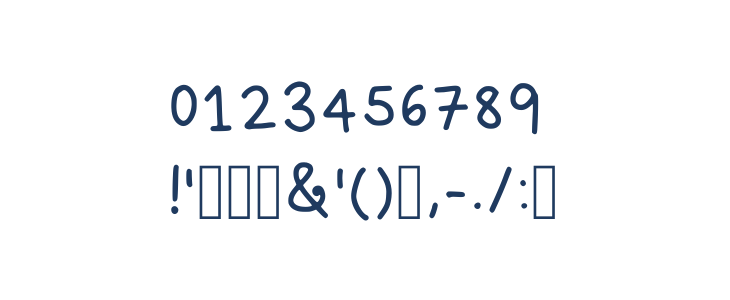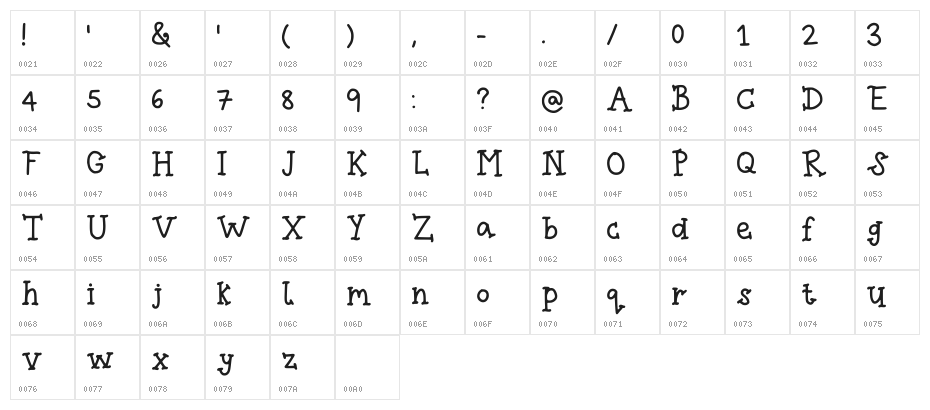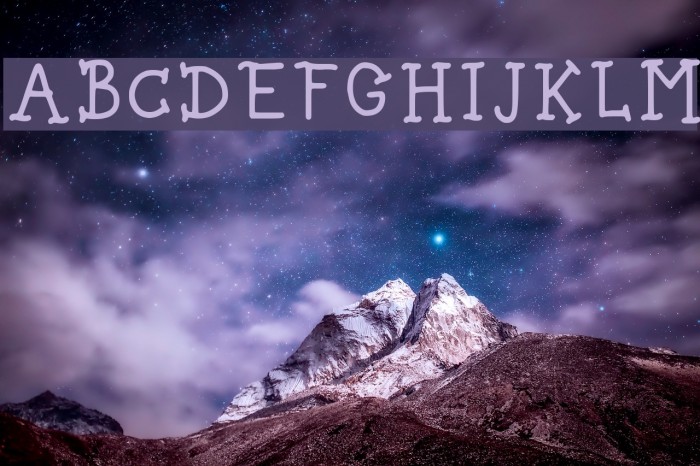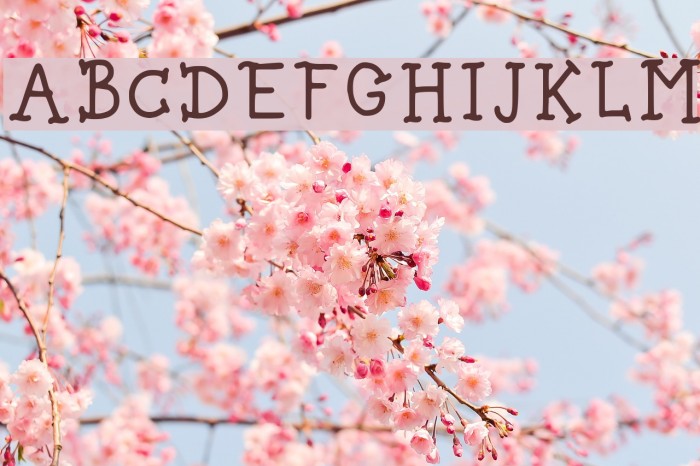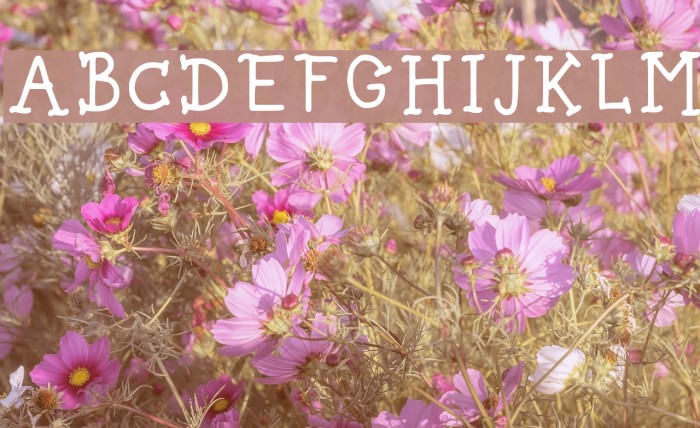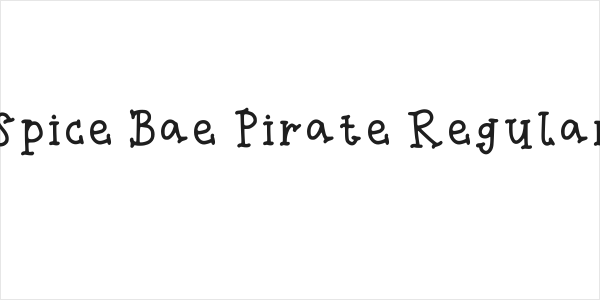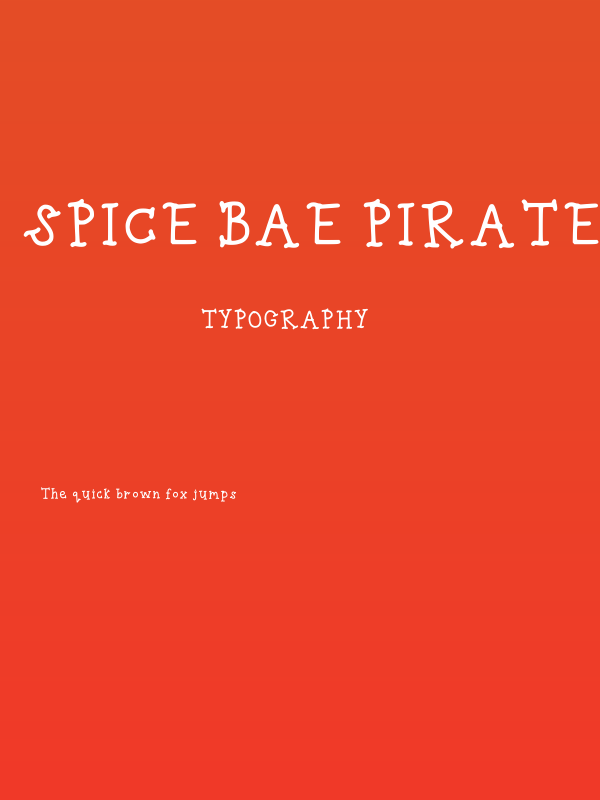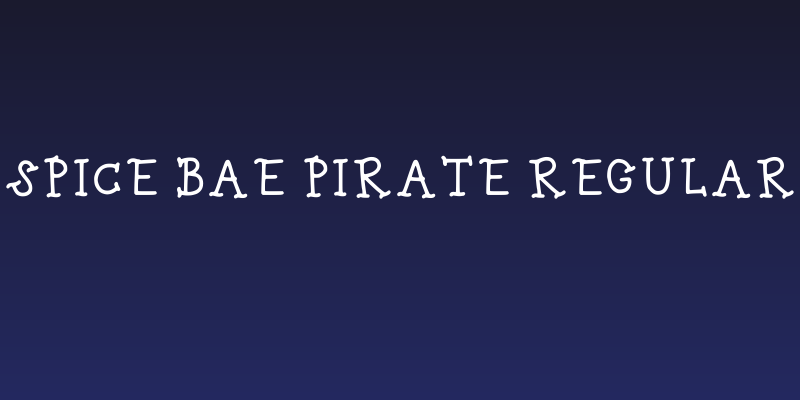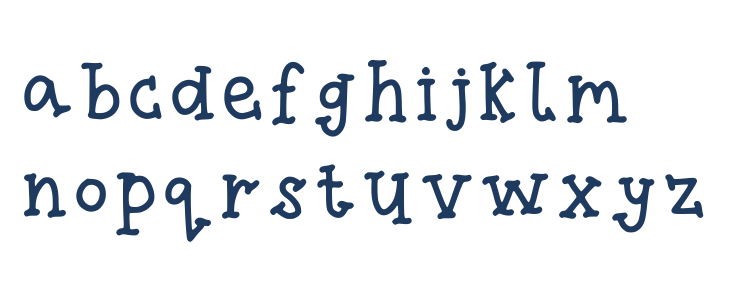
Spice Bae Pirate Regular Font
Spice Bae Pirate Regular Description
This font features a playful and whimsical design, reminiscent of pirate-themed aesthetics. The characters have a hand-drawn quality with uneven strokes and quirky serifs, giving it a unique and adventurous look. The uppercase letters are bold and slightly irregular, while the lowercase letters maintain a consistent style with a touch of flair. Numbers and special characters follow the same playful theme, making the font suitable for creative projects. The overall appearance is both fun and engaging, perfect for adding a touch of personality to any design.
| Proposed Projects | Ideal for children's books, themed party invitations, playful branding, and pirate-themed events. |